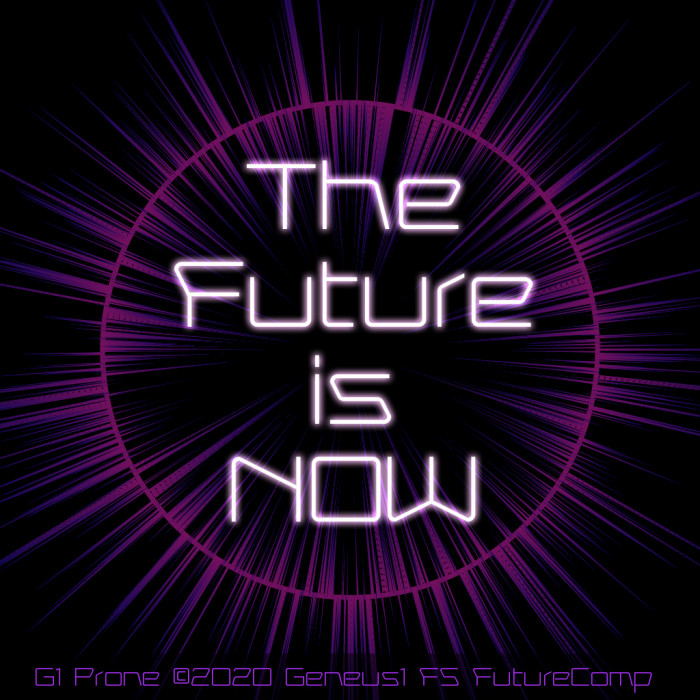
• Remember that time in the future now where we would blame immigrants for taking our jobs, and nobody talked about how robots can now execute many repetitive industrial manufacturing tasks, do gymnastics, disarm bombs, while working 24/7 without breaks, health insurance or labor unions, and how cars/drones could drive themselves with artificial intelligence that improves daily? That was the good ol' day. Now robots can perform surgical procedures. That video of a robot carefully removing the skin off of a grape was awesome. 4 out of 5 medical robots prefer the G1 Prone font for their personal visual linguistic representation due to its surgical precision and linear execution. The future of TeleRobotic medicine, or any laborious human endeavor, will be in the hands of our cold, unfeeling robot overlords. =)
A little trivial, unlike the previous ones, but very very high quality. Just such a font was not enough for this competition, I wish you good luck!
Hightly ellegant, master!
A combination of subtle curves and thin angled lines gives this font a strong dynamic quality.
Congratulations! FontStruct Staff have deemed your FontStruction worthy of special mention. “G1 Prone” is now a Top Pick.